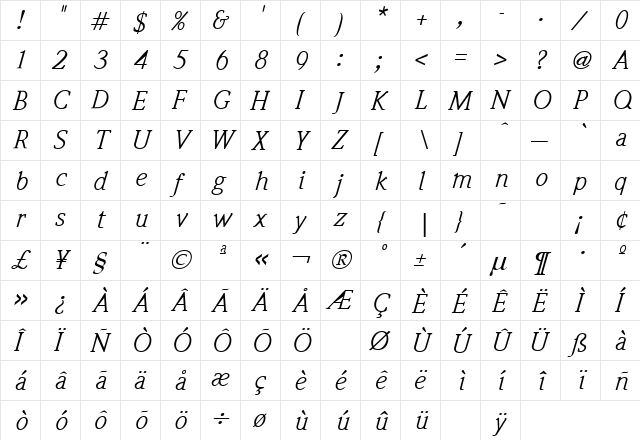
Weidemann Italic
Design Context for Weidemann Typeface
Weidemann is a composed and adaptable typeface that performs quietly and consistently across a wide range of design contexts. The slanted form adds forward momentum and visual energy.
Pro Tip: Try Weidemann for annotation and caption copy alongside an upright companion — the contrast in angle creates a dynamic but ordered typographic system.